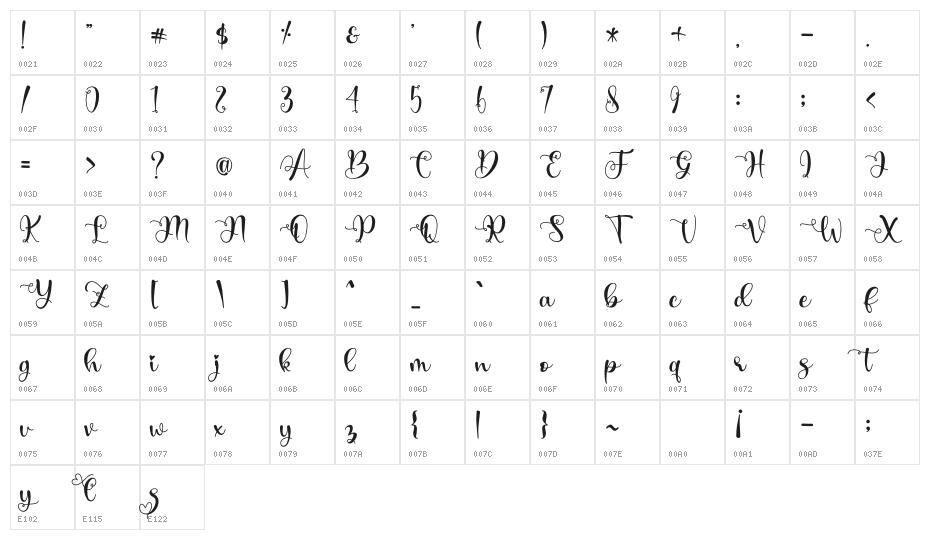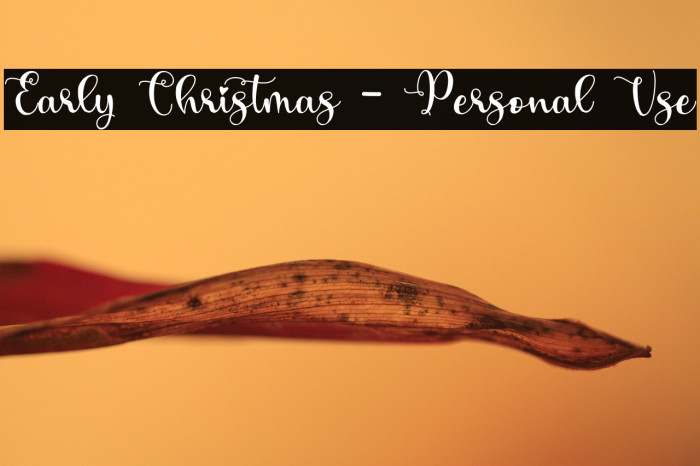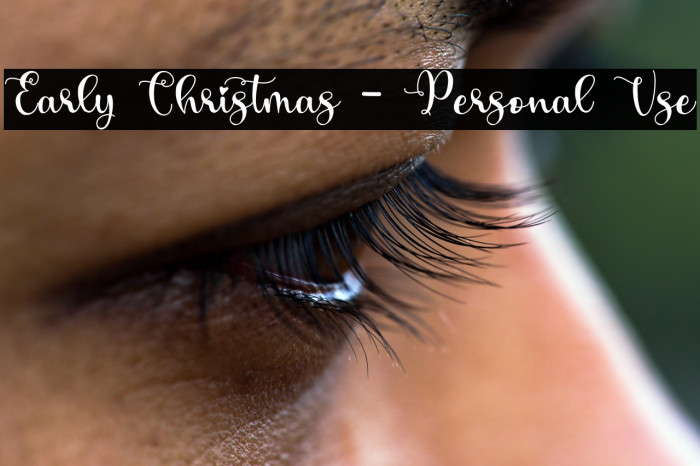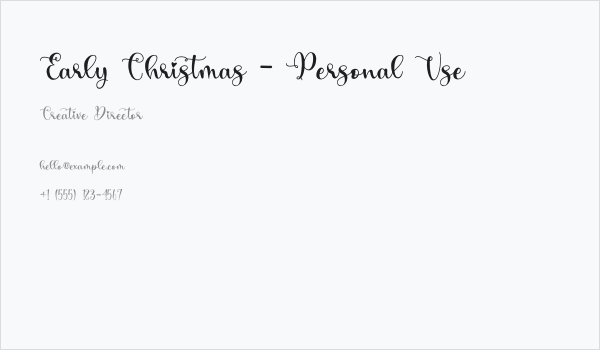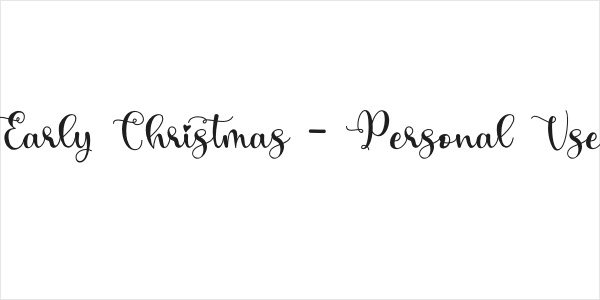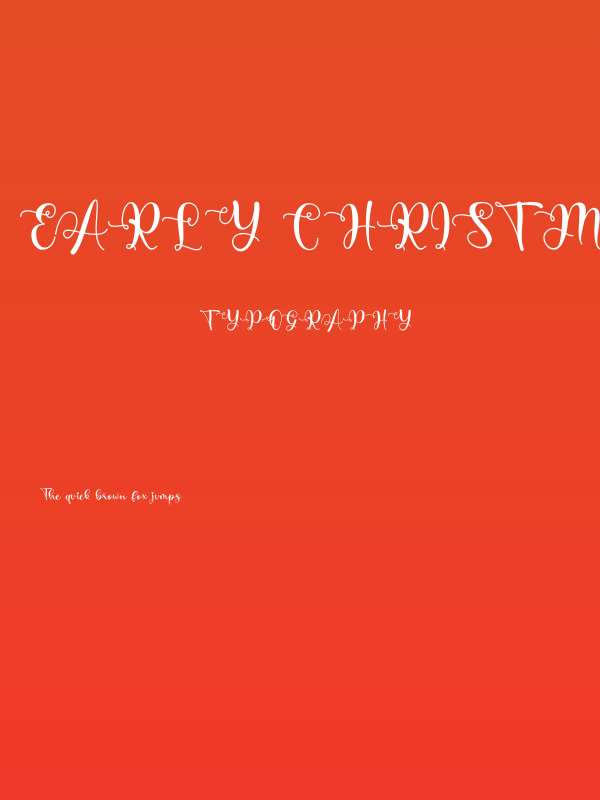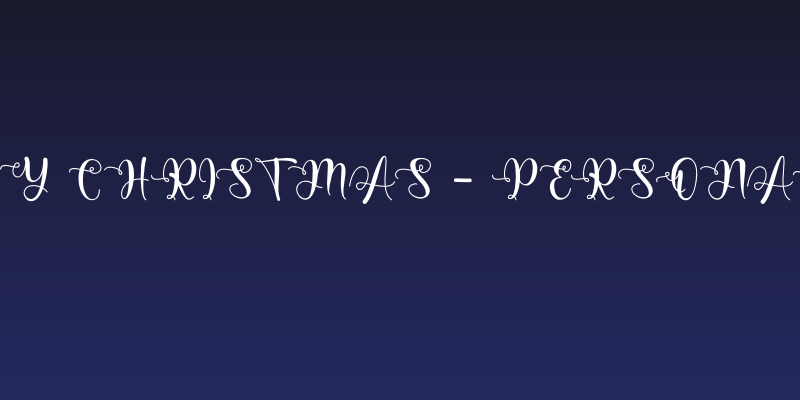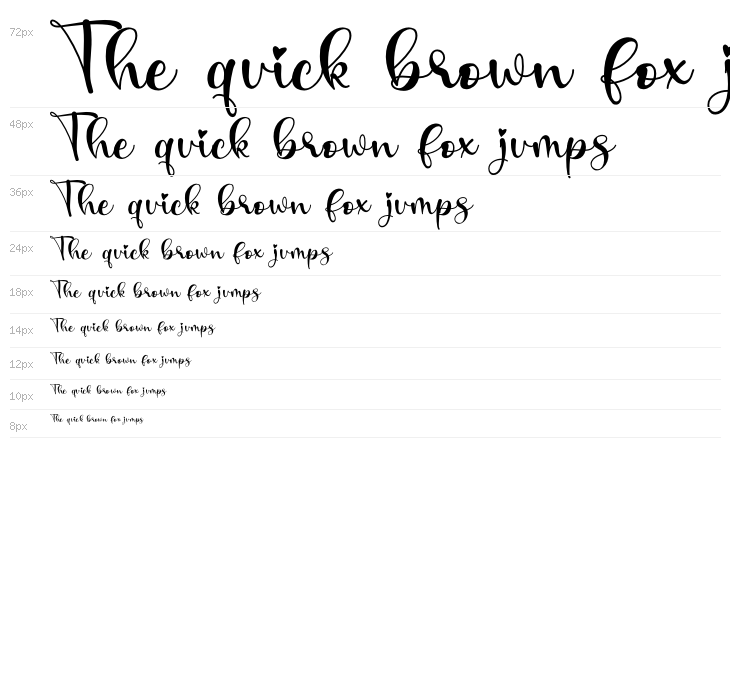
Early Christmas - Personal Use Font
Early Christmas - Personal Use Description
This font features an elegant and whimsical script style, characterized by its flowing, cursive letters with decorative swirls and loops. The uppercase letters are particularly ornate, with intricate embellishments that give a festive and playful feel. The lowercase letters maintain a consistent cursive style, with some characters featuring heart-shaped accents, adding a touch of charm. The numerals are equally decorative, with unique flourishes that complement the overall style. Special characters are designed to match the font's playful and ornate aesthetic, making it suitable for creative and festive designs.